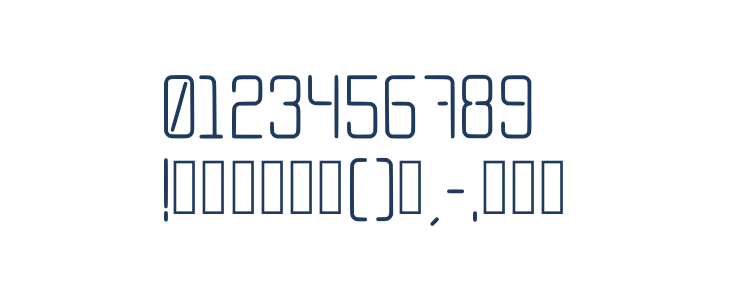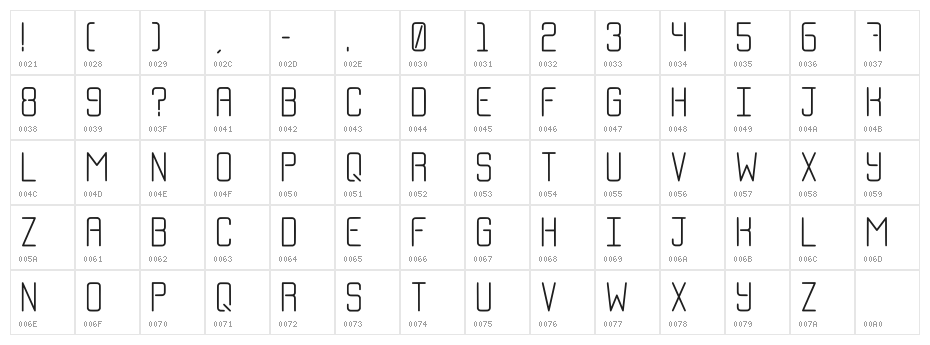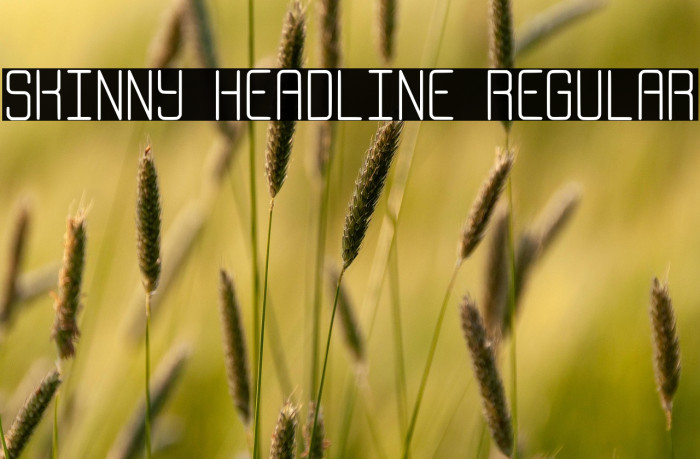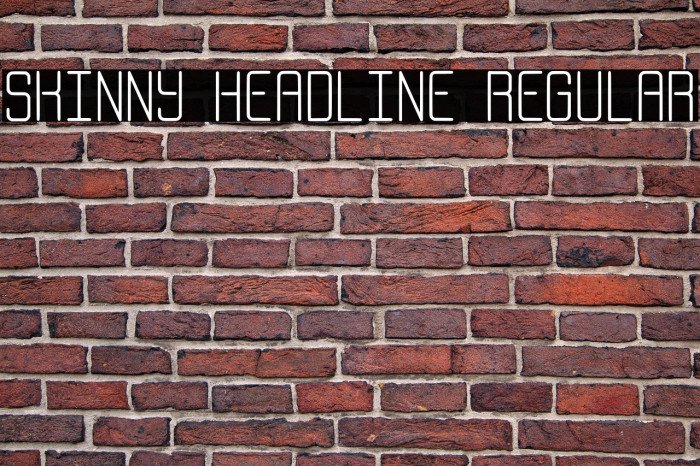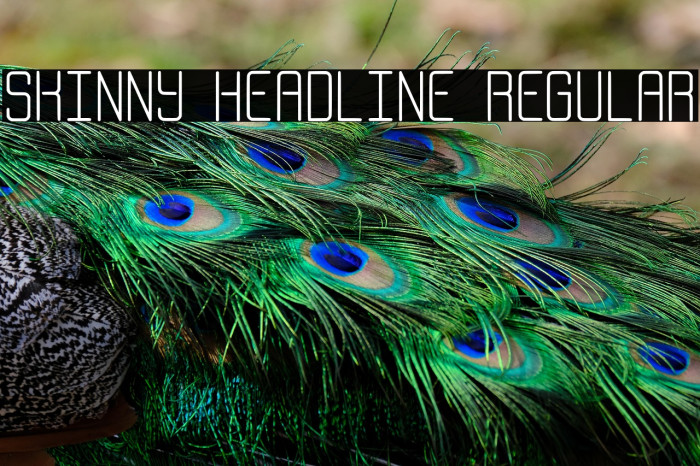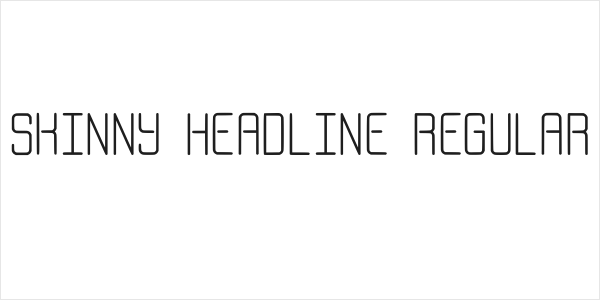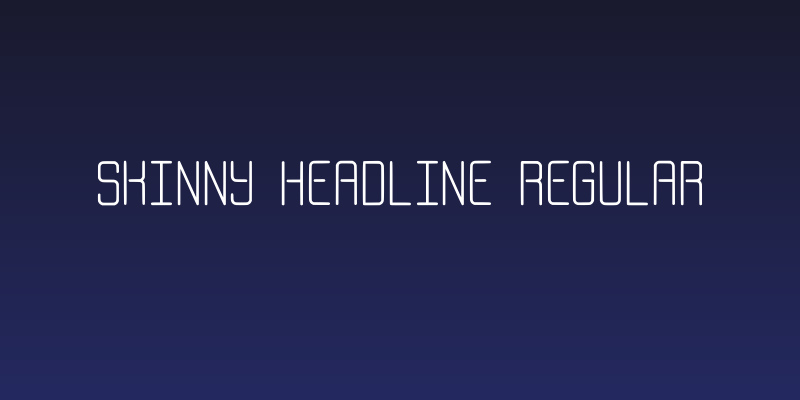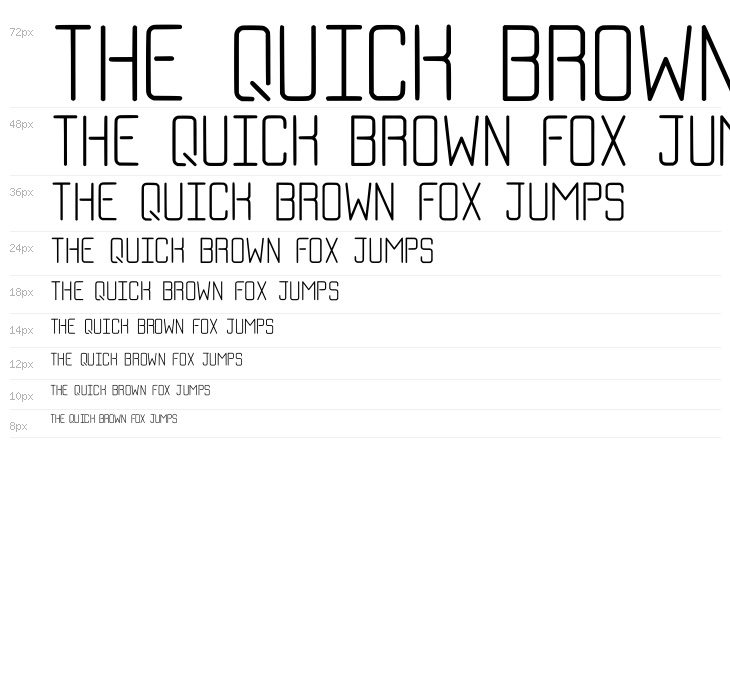
Skinny Headline Regular Font
Skinny Headline Regular Description
This font features a sleek, modern design with a geometric structure. The characters are tall and narrow, giving it a distinct, elongated appearance. The lines are clean and uniform, with rounded edges that soften the overall look. This typeface is highly legible, making it suitable for a variety of design applications. The consistent stroke width throughout the characters provides a harmonious and balanced aesthetic. Its minimalist style is both contemporary and versatile, ideal for projects that require a stylish yet understated font.